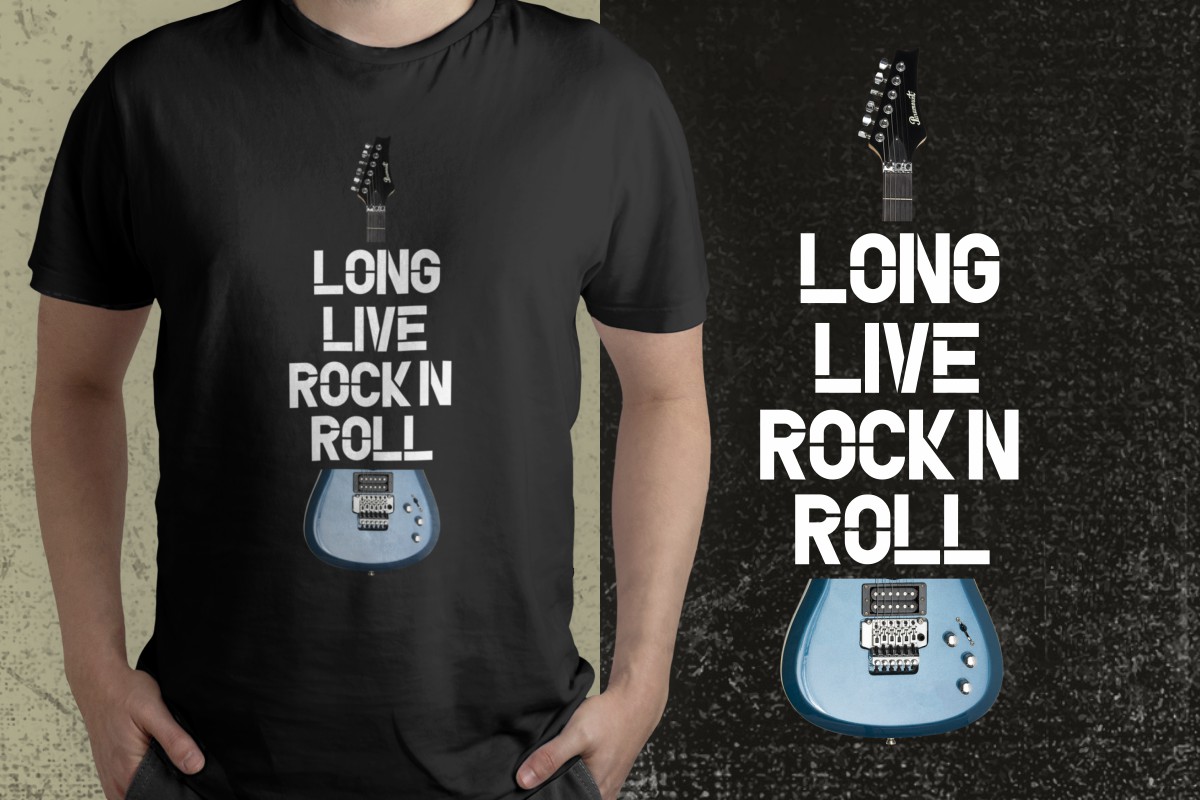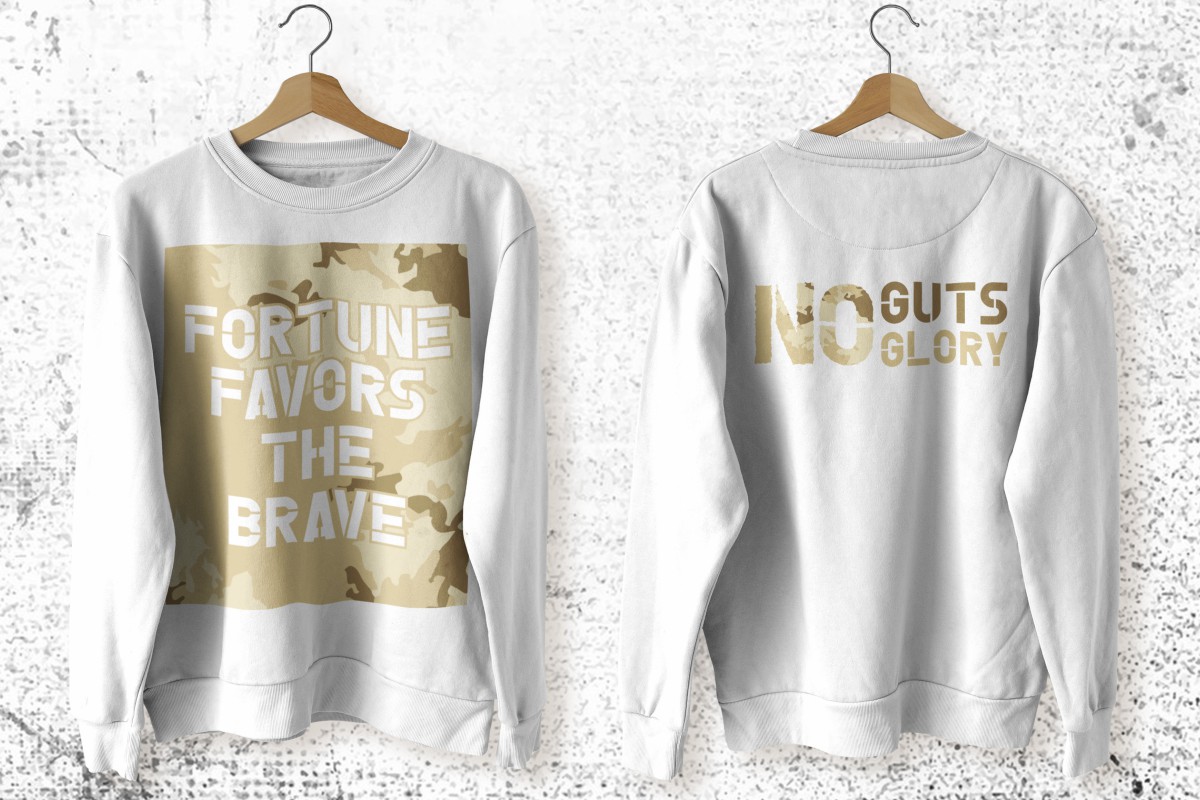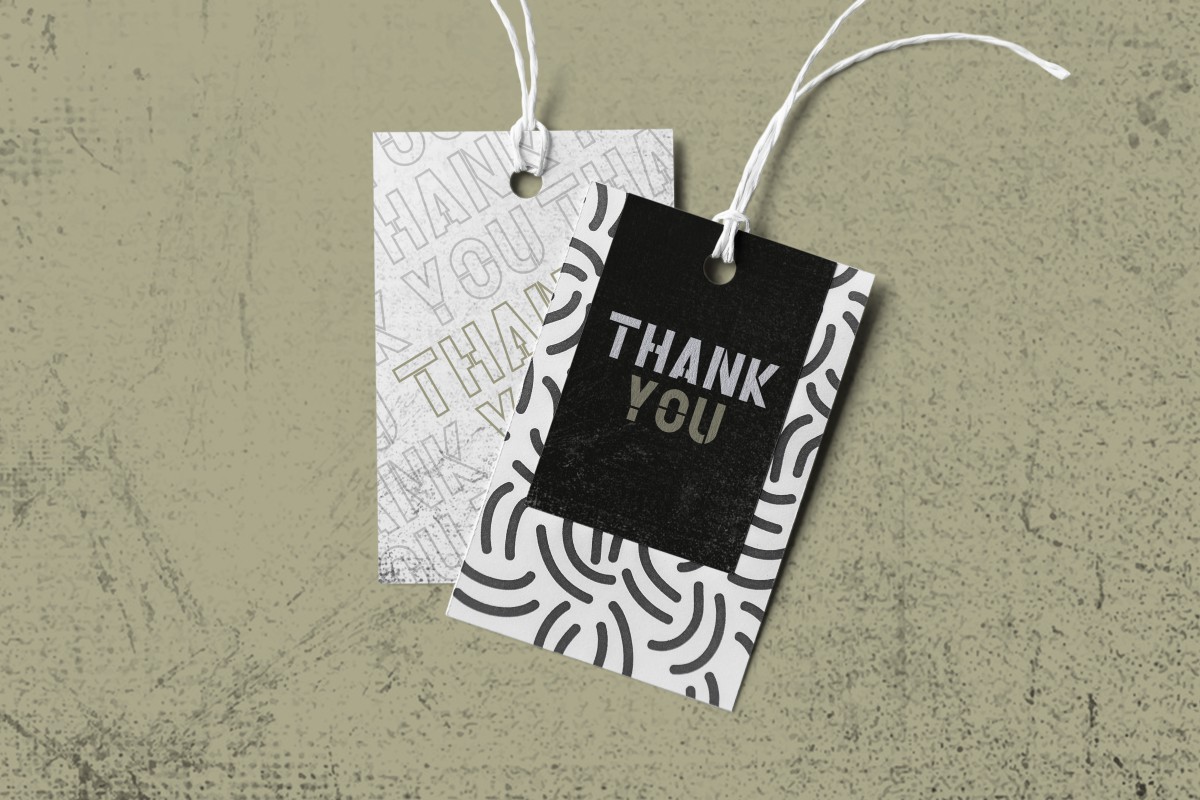
Rock Stencil Font
Rock Stencil Display Font
It’s a unique display font with stencil and roughen style. The font was inspired from rock street and with a little horror feel. It has a unique style that will bring the special effect to the design. It will works for events, branding, artist, make up, and any other fun things. Rock Stencil includes full set of Uppercase and Lowercase Basic Characters, Numerals and Punctuation. The font will also works for outdoor, fashion products, camping, adventure style. The font is perfect for many projects, headlines, logos, poster, tittle, products, etc